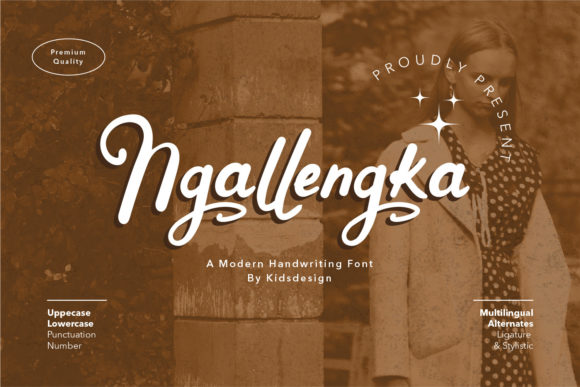
Ngallengka Script: Adding Vintage Charm to Modern Designs
Finding a typeface that feels both timeless and personal can be a real challenge. You want something with character, a font that tells a story before a single word is read. This is where a premium font like Ngallengka Script enters the conversation. It’s not just another script font; it’s a carefully crafted design asset that brings a distinct vintage and handwritten feel to a wide range of projects. For designers, entrepreneurs, and creators looking to add a layer of authenticity and warmth, understanding how to use a typeface like this effectively is key.
Understanding the Personality of Ngallengka Script
At its core, Ngallengka Script is a beautiful and vintage styled script font. Its visual personality is defined by flowing, connected letterforms that mimic natural handwriting. You’ll notice subtle variations in stroke weight, giving it a textured, organic quality that feels human and approachable. Unlike overly formal or rigid typefaces, this font has a relaxed elegance. It avoids the extremes of being either too casual or too stuffy, landing in a sweet spot that feels both nostalgic and relevant. This balance is what makes it a versatile creative font for projects that need a touch of sincerity.
The appeal lies in its ability to evoke emotion. A strong brand identity often hinges on connecting with an audience on a personal level. Ngallengka Script does this by feeling familiar, like a note from a friend or a cherished label on a vintage product. It doesn’t shout for attention; instead, it invites the viewer in with its charm. This makes it particularly effective for projects where storytelling and a personal touch are paramount.
Where This Script Font Truly Shines
The real value of any design asset is in its application. Ngallengka Script is suitable for any projects such as logos, branding projects, homeware designs, product packaging, mugs, quotes, posters, shopping bags, t-shirts, book covers, and all your other lovely projects that need beautiful handwriting taste. Let’s break down where it works best.
Branding and Logo Design
For a logo, a script font can establish immediate warmth and personality. Ngallengka Script is an excellent choice for brands in the boutique, artisan, wedding, or lifestyle sectors. Imagine it on a logo for a small-batch coffee roaster, a handcrafted jewelry line, or a cozy bed-and-breakfast. It sets a tone of care and craftsmanship. However, a crucial design consideration is scalability. This font is a display font, meaning it’s designed for impact at larger sizes. It’s perfect for a primary logo lockup but may not be suitable for body text on a website.
Packaging and Product Design
This is where Ngallengka Script can be a game-changer. On product packaging, it instantly communicates quality and a handmade aesthetic. Think of labels for artisanal foods, craft beer, or natural skincare products. It works beautifully on the main product name or a featured quote, creating a focal point that stands out on a shelf. For homeware designs, it can add a vintage charm to ceramic mugs, tea towels, or decorative prints. The key is to use it for highlights and headlines, pairing it with a clean sans serif font for essential details like ingredients or instructions to ensure clarity.
Marketing and Digital Content
In the digital space, grabbing attention quickly is vital. Ngallengka Script is a fantastic tool for creating engaging social media graphics. Use it for quotes, announcements, or sale promotions on platforms like Instagram and Pinterest. Its handwritten style feels authentic and personal, which can increase engagement. For bloggers and content creators, it can add style to featured images, pull quotes within articles, or newsletter headers. When using it in web design, apply it sparingly—perhaps for a hero section headline or a special call-to-action—to maintain its impact and not overwhelm the reader.
Print and Editorial Projects
For publishers and authors, this font offers a wonderful option for book covers, especially in genres like romance, memoir, or historical fiction. It can set the mood instantly. In editorial design, such as magazines or lookbooks, it’s perfect for chapter titles, section dividers, or stylized captions. For personal projects like wedding invitations, greeting cards, or scrapbooking, Ngallengka Script provides that beautiful handwriting taste without needing perfect penmanship. It elevates a personal project into something professional and polished.
Practical Guidance for Using Ngallengka Script
Choosing the right font is only half the battle; using it well is what separates good design from great design. Here’s some practical advice for working with a typeface like Ngallengka Script.
Font Pairing is Essential. Never use a script font alone for all text. The most effective strategy is to pair it with a complementary typeface. A classic combination is Ngallengka Script with a simple, geometric sans serif font. The contrast between the ornate script and the clean, neutral sans serif creates a clear visual hierarchy. The script draws the eye for headlines, while the sans serif ensures readability for paragraphs. You could also pair it with a traditional serif font for a more classic, elegant feel.
Readability Comes First. Because it’s a connected script, readability can be a concern, especially at smaller sizes or in long sentences. Always test your designs at the intended viewing size. For logos, ensure the letters are distinct enough to be read quickly. For printed materials like posters or t-shirts, consider the distance from which they’ll be viewed. If readability suffers, you might use the font for a single word or a very short phrase.
Ultimately, Ngallengka Script is more than just a set of letters. It’s a design tool for adding narrative, emotion, and a vintage sensibility to your work. By understanding its strengths and applying it thoughtfully, you can leverage this beautiful script font to create designs that are not only visually appealing but also deeply resonant with your audience. It’s about using modern typography with a classic soul to tell a better story.